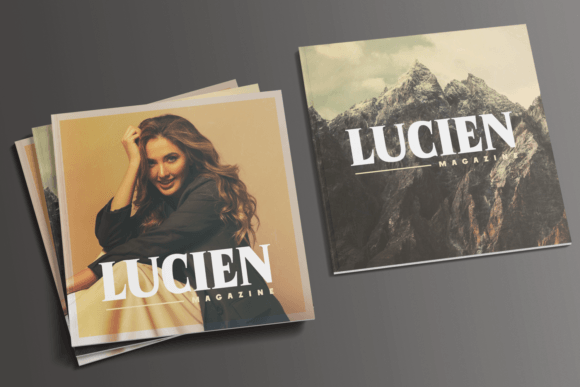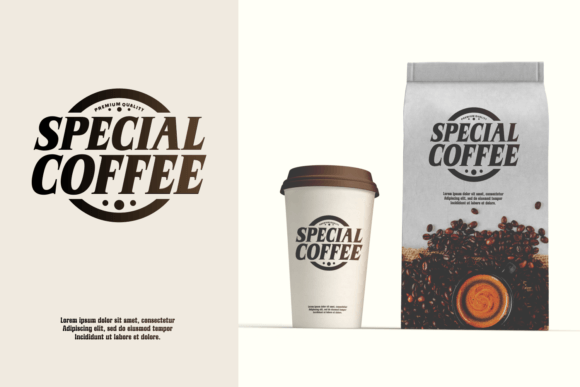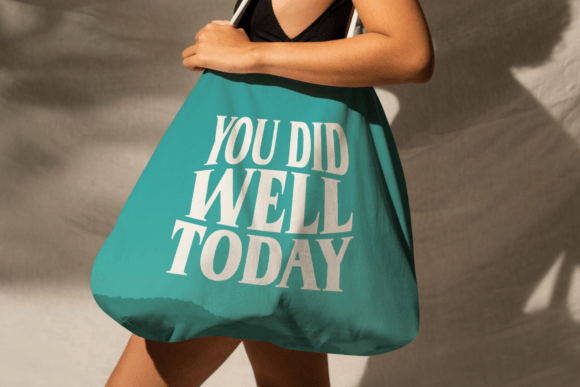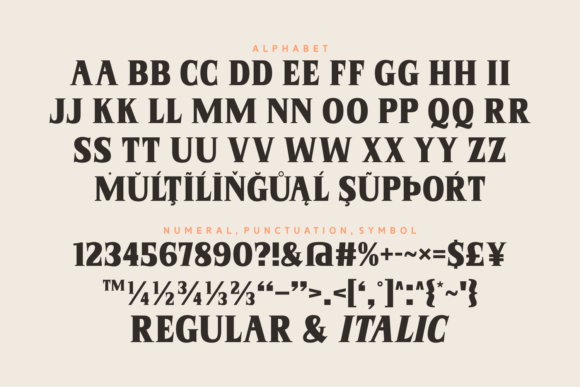
Introducing Belvine Delight Font: Elevate Your Designs with Elegance
In the world of typography, a well-crafted font can make all the difference in elevating your design projects from ordinary to extraordinary. If you’re a designer or crafter looking for a typeface that exudes elegance, sophistication, and a touch of minimalist charm, look no further than the Belvine Delight Font. Designed specifically as a display serif, Belvine Delight is poised to become your go-to choice for a variety of creative endeavors.
The Essence of Belvine Delight
Belvine Delight is characterized by its minimalist, elegant, and clean serif design. This harmonious blend of simplicity and sophistication makes it an incredibly versatile typeface, suitable for a wide range of applications. Whether you’re working on designing labels for perfumes and cosmetics, creating captivating magazine covers, posters, manifests, flyers, or crafting engaging social posts and fashion content, Belvine Delight adapts wonderfully to any context.
Unleash Your Creativity with Belvine Delight
One of the most striking features of Belvine Delight is its ability to bring your projects to life. The font’s clean lines and elegant serifs add a level of sophistication and refinement that can instantly elevate the visual appeal of your designs. Imagine being able to make a lasting impression on your audience with a typeface that not only communicates your message clearly but also does so with style and panache.
For designers and crafters, finding the right font can often be a daunting task. You need something that is not only aesthetically pleasing but also functional and versatile. Belvine Delight checks all these boxes and more. Its minimalist design ensures that it pairs well with a variety of imagery and graphical elements, while its elegance and sophistication make it perfect for projects that demand a high level of refinement.
Applications of Belvine Delight
The applications of Belvine Delight are vast and varied. Here are a few ideas to get you started:
- Perfume and Cosmetics Labels: Add a touch of luxury and sophistication to your product labels with Belvine Delight.
- Magazine Covers: Stand out on newsstands with a captivating cover that features Belvine Delight.
- Posters and Flyers: Whether you’re advertising an event, a product, or a service, Belvine Delight can help you create eye-catching promotional materials.
- Social Media Posts: Elevate your brand’s social media presence with stylish and engaging posts featuring Belvine Delight.
- Fashion Content: From fashion magazines to clothing labels, Belvine Delight can add a level of elegance and sophistication to your fashion projects.
Why Choose Belvine Delight?
Choosing Belvine Delight for your typography needs comes with several benefits:
- Versatility: Its elegant and clean design makes it suitable for a wide range of projects.
- Sophistication: Adds a touch of elegance and refinement to your designs.
- Readability: Despite its elegant serifs, Belvine Delight remains clear and readable, even at smaller sizes.
Belvine Delight Font is more than just a typeface; it’s a design tool that can elevate your projects and help you communicate your message with style and sophistication. Whether you’re a seasoned designer or a crafter looking to add a professional touch to your creations, Belvine Delight is an excellent choice. Its minimalist elegance, versatility, and readability make it an invaluable asset in your design arsenal. So why wait? Incorporate Belvine Delight into your next project and experience firsthand how it can bring your designs to life.